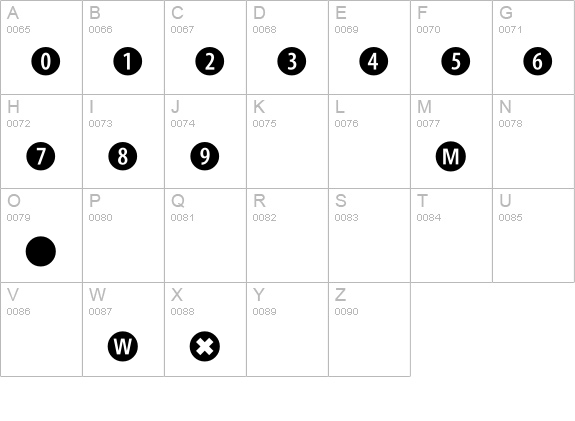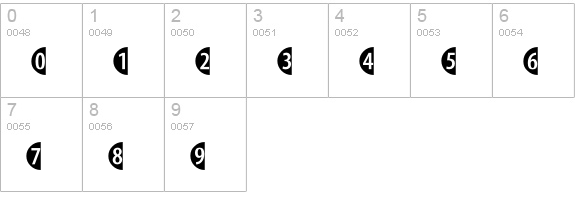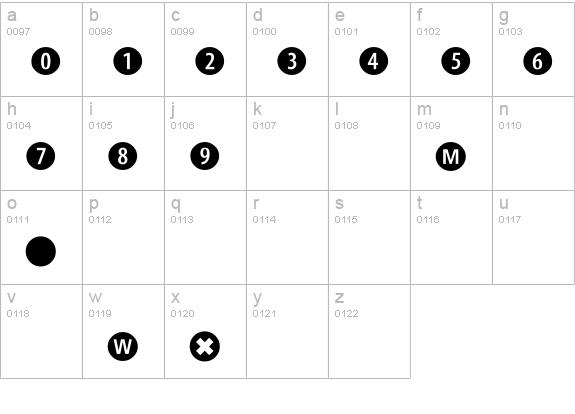
Combnumb2 Font Details
Combnumb2 font is a modern and stylish typeface that is perfect for adding a unique touch to your designs. With its combination of sharp angles and bold lines, this font exudes a sense of sophistication and creativity. Whether you're working on a logo, poster, or any other project, Combnumb2 font will make your text stand out and leave a lasting impression. The best part is that Combnumb2 font is completely free to download at FontsMarket.com. This means you can easily access this stunning font and use it in your personal and commercial projects without any additional cost. Don't miss out on the opportunity to enhance your designs with the striking elegance of Combnumb2 font. Download it today and start creating visually captivating artwork that will leave a lasting impact on your audience.